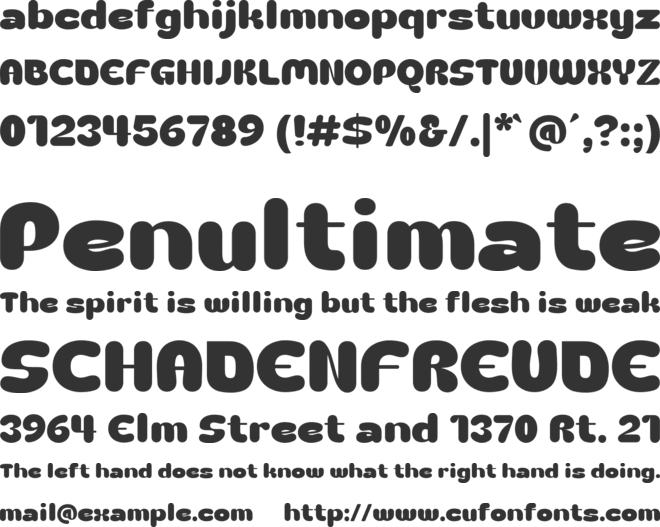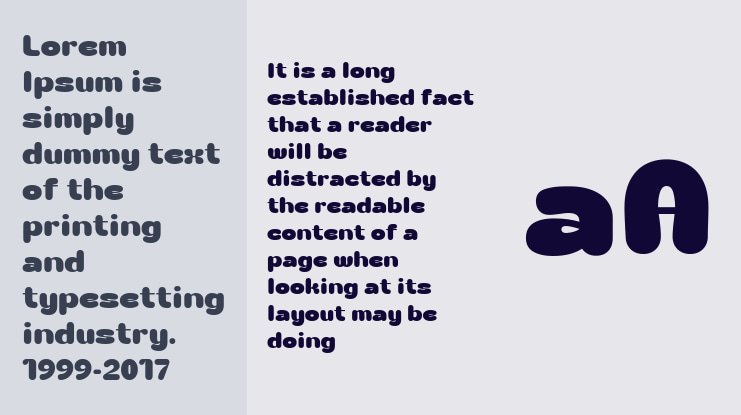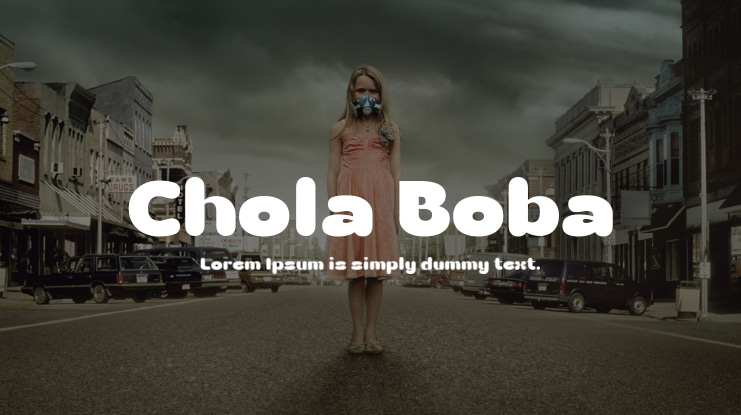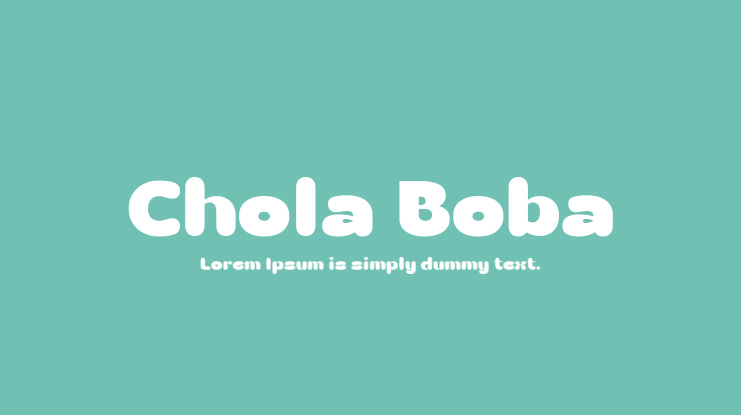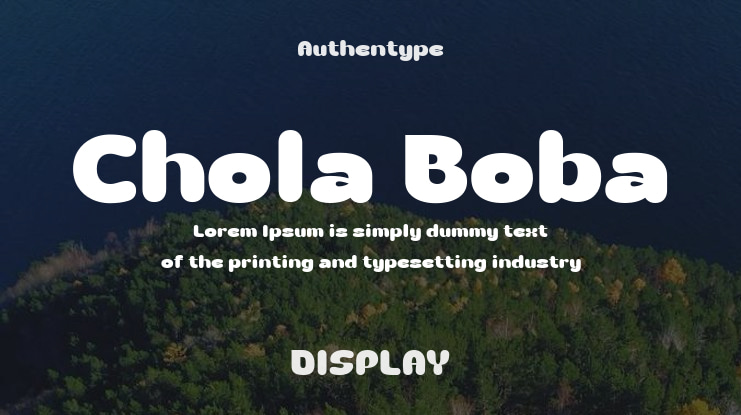
Chola Boba Font
Authentype
Chola Boba – Adorable Logo Font for Fun and Playful Branding.
Chola Boba is a delightful logo font exuding an innocent and youthful charm. Ideal for print, digital, and web designs, this font adds a touch of charm to any project. Featuring nine distinct weights and a cheerful sans-serif style, Chola Boba ensures your text is both readable and easily recognizable to your audience. Incorporate Chola Boba into your next project to infuse a playful vibe into your designs!